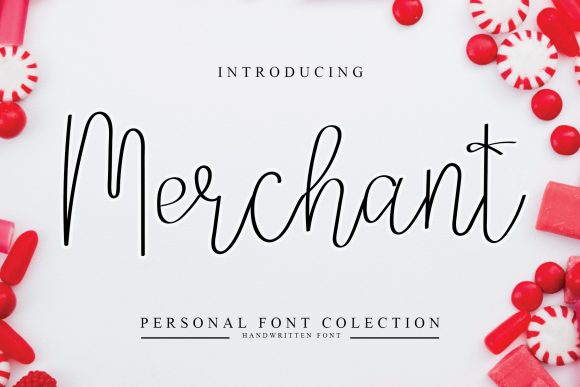
Prepare to be captivated by Merchant Font, a script font that's simply irresistible. Immerse yourself in its world of elegance and charm, where every letter dances with a unique grace. This font is not just a collection of characters; it's a masterpiece, a celebration of creativity and art.
With Merchant Font, your designs will blossom into a symphony of visual delight. Its delicate curves and playful flourishes will add a touch of magic to your logos, branding, and quotes. Let your imagination run wild as you witness your words transformed into works of art.
This font is more than just a tool; it's a gateway to a world of endless possibilities. Whether you're a seasoned designer or just starting out, Merchant Font will elevate your work to new heights. Its versatility knows no bounds, allowing you to create designs that captivate and inspire.
But what truly sets Merchant Font apart is its emotional resonance. Each letter is infused with a sense of warmth and personality, inviting your audience to connect with your message on a deeper level. Whether you're crafting a heartfelt quote or designing a captivating logo, Merchant Font will make your words come alive, leaving an unforgettable impression.
Don't settle for ordinary fonts that blend into the background. Choose Merchant Font and unleash the power of beauty and creativity. Let your designs speak volumes, leaving your audience spellbound. Embark on a journey of visual storytelling, where every letter tells a tale and every word captivates.
Merchant Font is not just a font; it's an experience. It's a chance to elevate your designs, to captivate your audience, and to leave a lasting impression. So why wait? Dive into the world of Merchant Font today and unlock the true potential of your creativity.